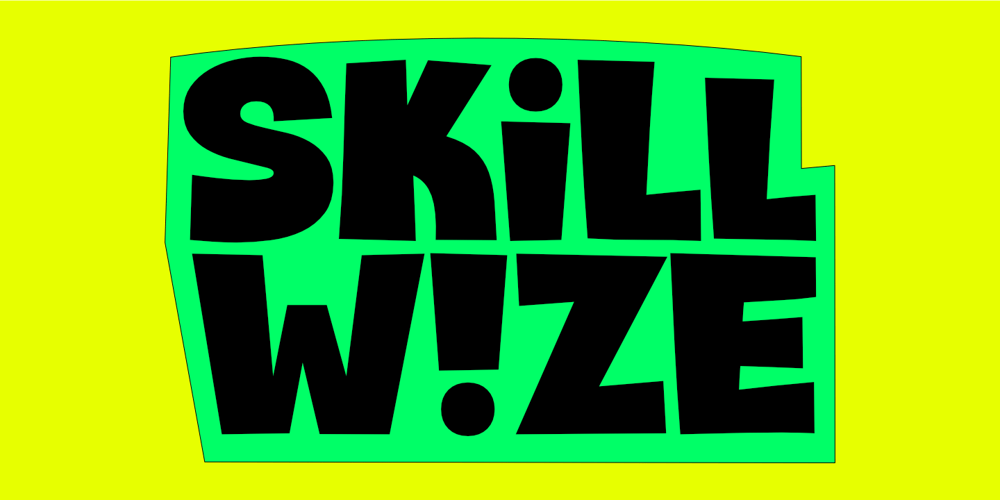
Skillwize
Skillwize font
Skillwize Font Family was designed by Aldy Sidik, Nurul Hidayani and published by Olivetype. Skillwize contains 1 styles and family package options. Grow your imagination, this font is for you. Skillwize is a bold and fun typeface. This playful, thick font is perfect for your next design project. It will give you the personality you’ve been looking for. Skillwize is fresh, creative and has a little bit of everything: it’s casual, yet serious; soft yet hard; and made for everyone. Use Skillwize for product packaging, posters, newsletters, invitations, blog posts, headlines – any design where you want to stand out with your creativity. Try it out today!So what’s included : Basic Latin Uppercase and Lowercase Numbers, symbols, and punctuations Multilingual Support. Accented Characters : ÀÁÂÃÄÅÆÇÈÉÊËÌÍÎÏÑÒÓÔÕÖØŒŠÙÚÛÜŸÝŽàáâãäåæçèéêëìíîïñòóôõöøœšùúûüýÿžß PUA Encoded and fully accessible without additional design software Simple Installations, works on PC & Mac Thank You. We hope you enjoy our fonts.